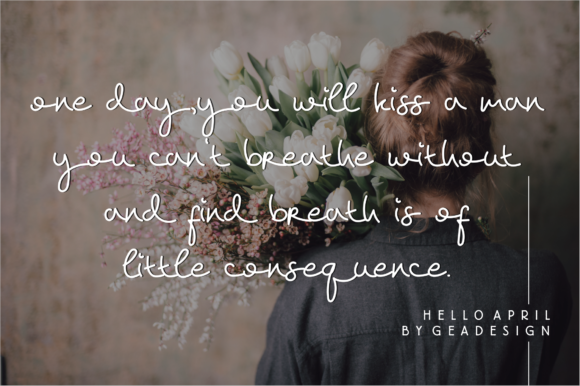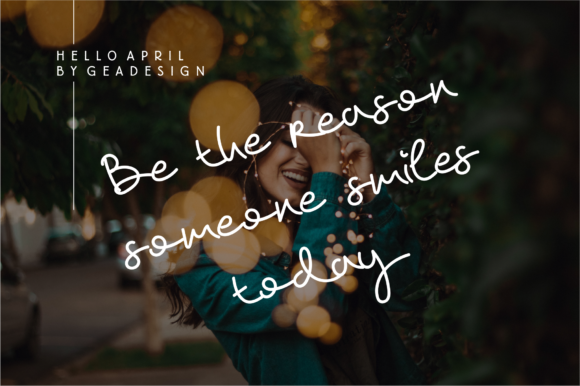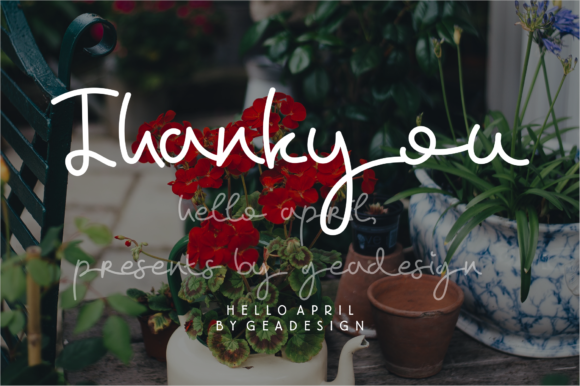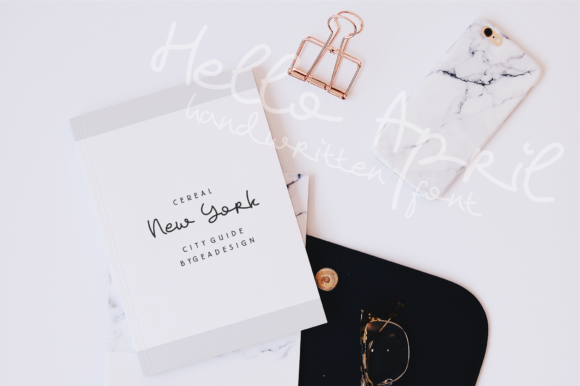
Hello April Font
About Hello April Font
Hello April is a romantic handwritten font with a delicate touch. Get inspired by its whimsical and cute elements, and use it for any design project that requires a special twist.